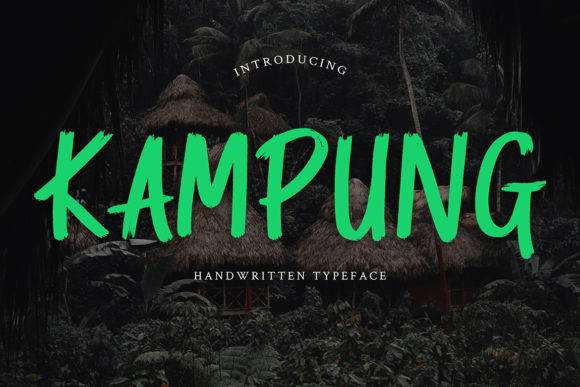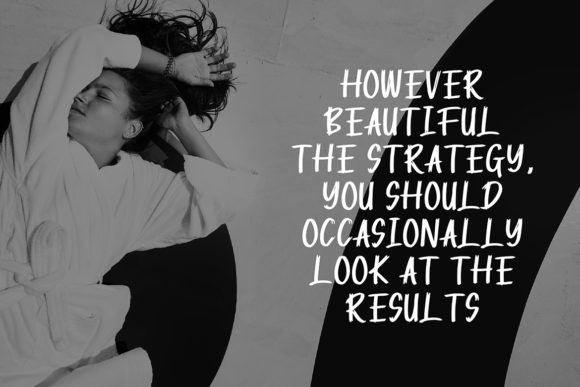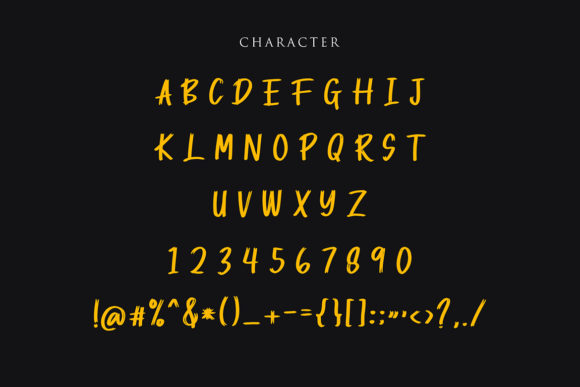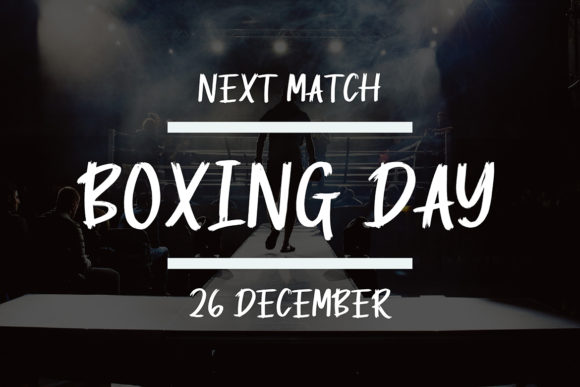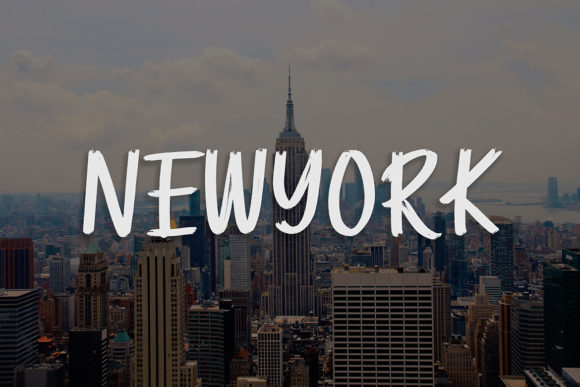
Kampung Font
About Kampung Font
Kampung is a modern and casual brush handwritten font. It’s casual charm makes it appear wonderfully down-to-earth, readable and, ultimately, incredibly versatile.